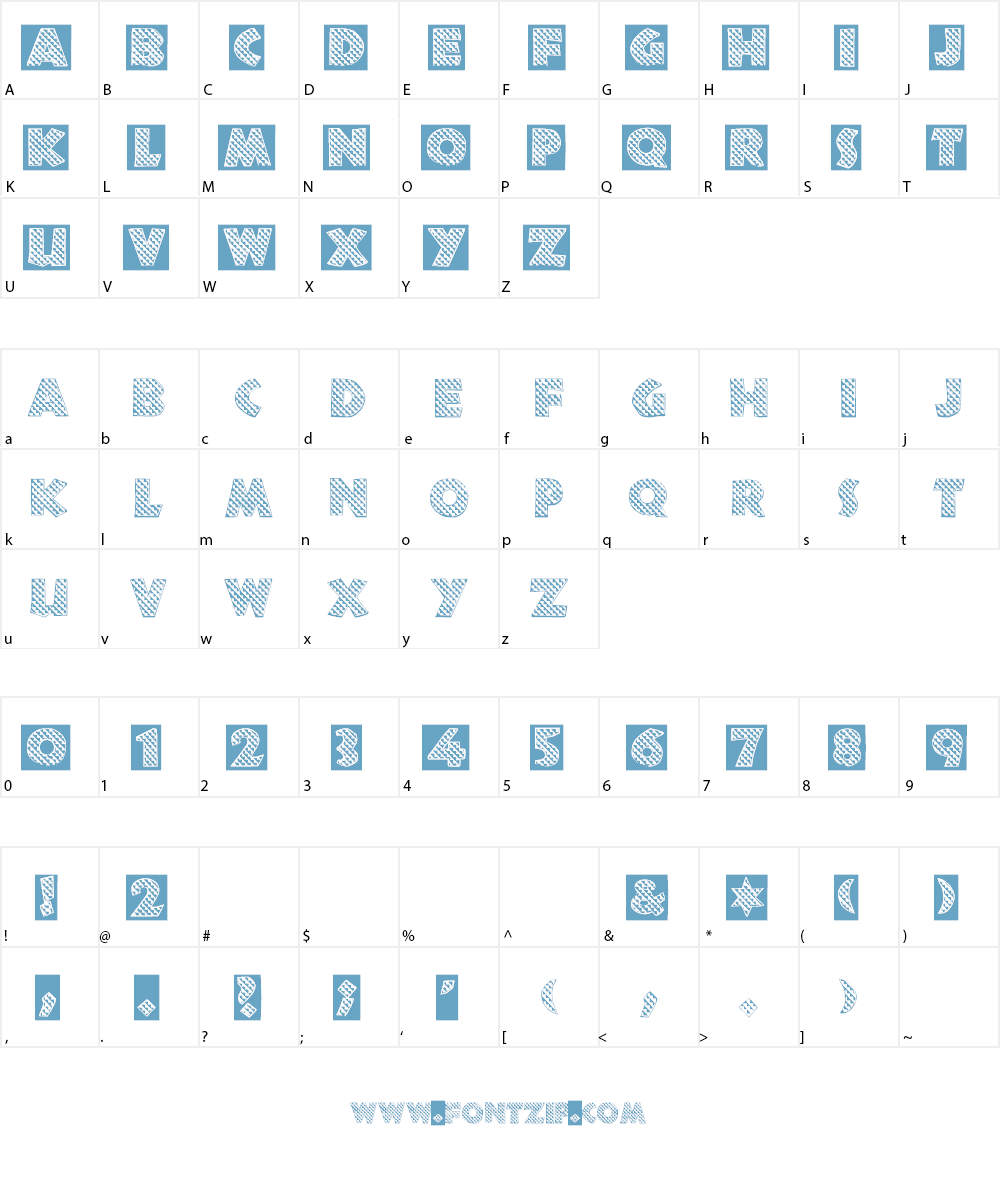
Ndlovu - the Elephant - names our headline font, which is based on the authentic Zulu "pecked" wood-carving style. Afrikanize your docs with Ndlovu headlines or Dropcaps. Full 94-character set.